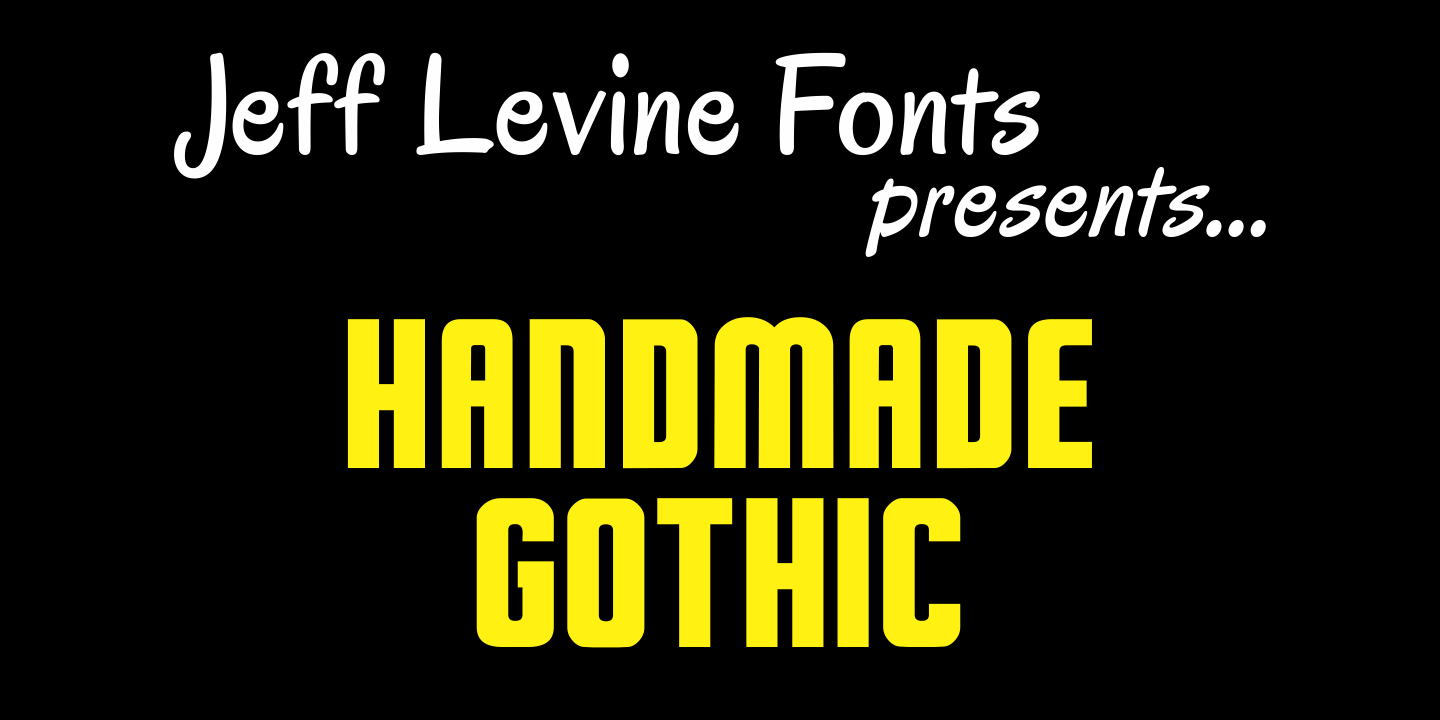
Handmade Gothic JNL is a display sans font published by Jeff Levine Fonts.
Handmade Gothic JNL is one of many typefaces inspired by lettering samples in a 1941 Speedball® Lettering Pen instructional booklet. The bold, Deco-style sans is perfect for many attention-getting headlines and titles.